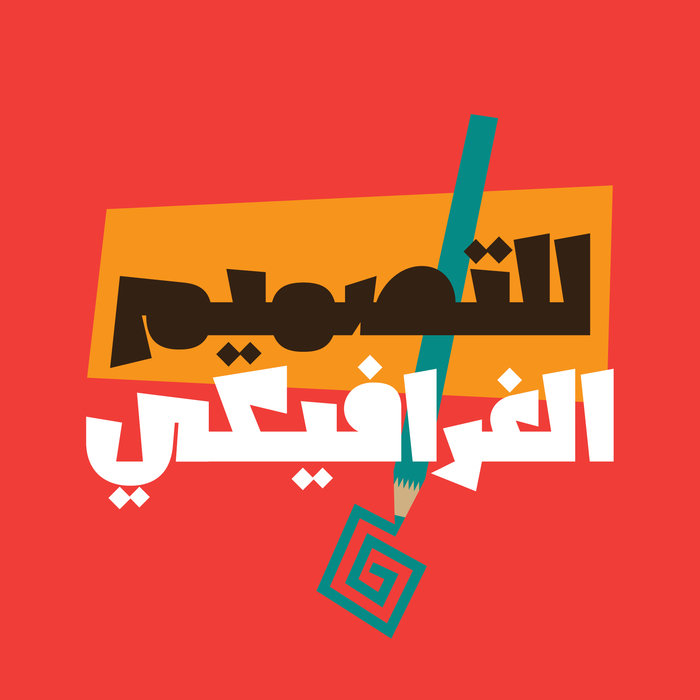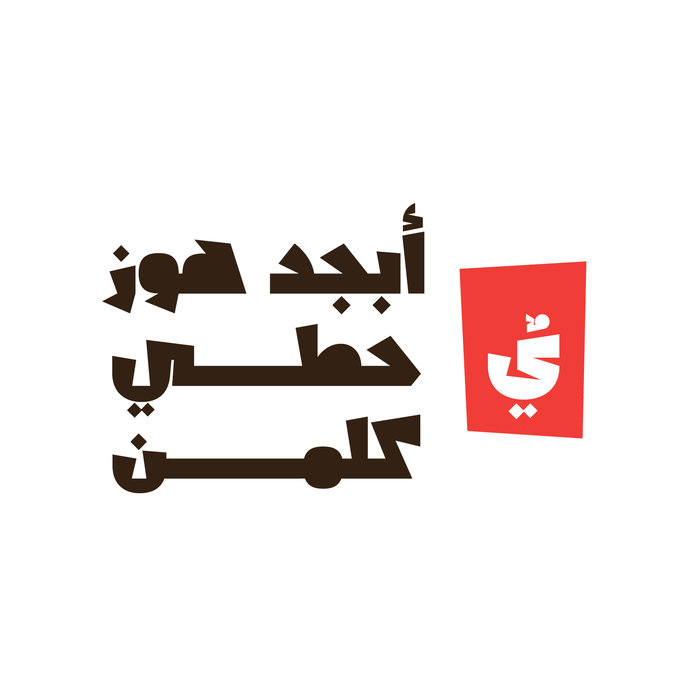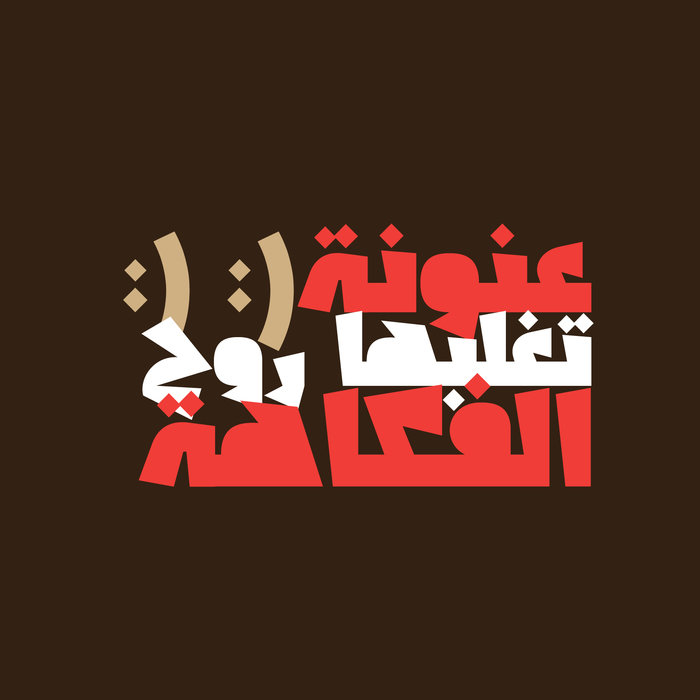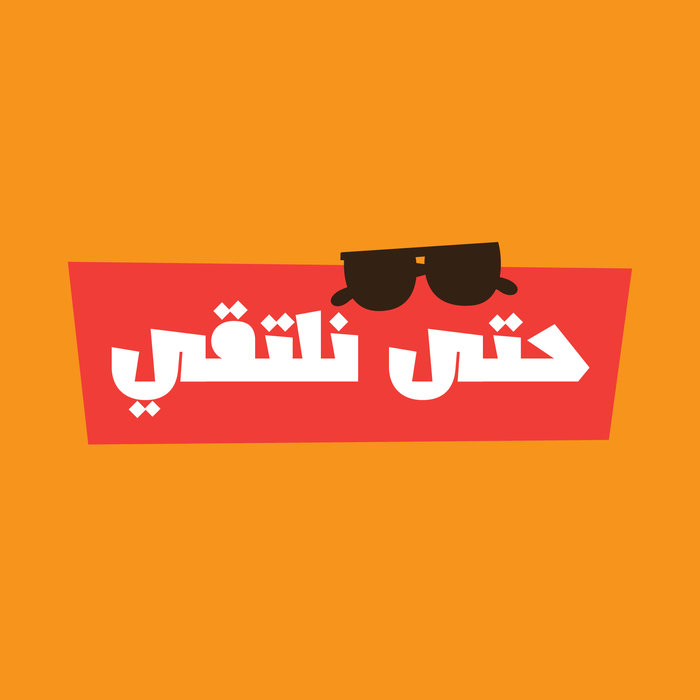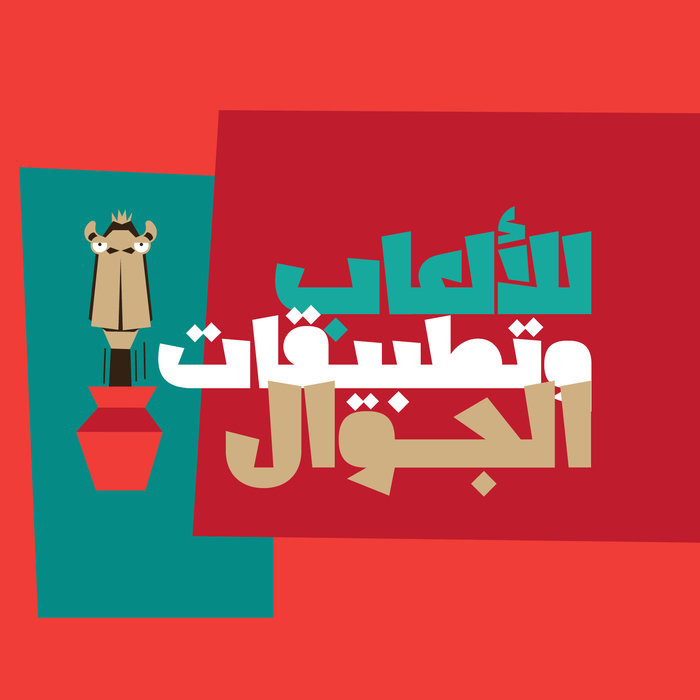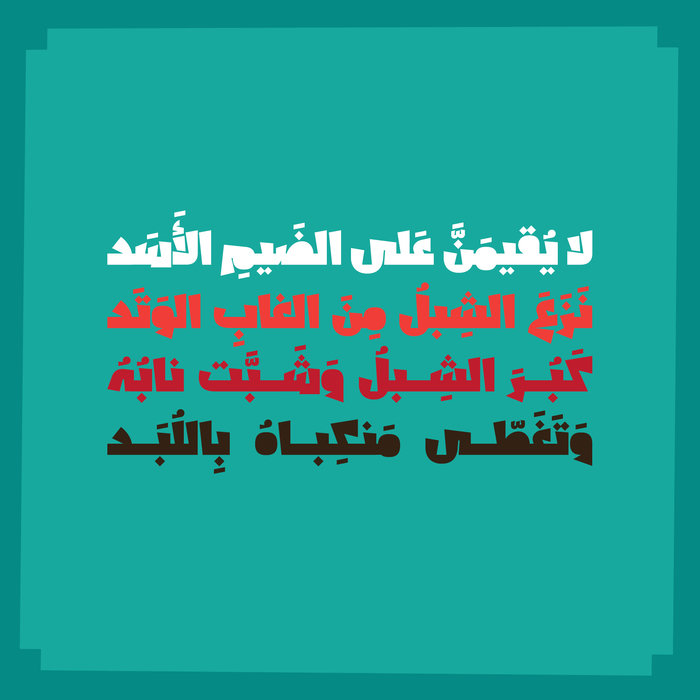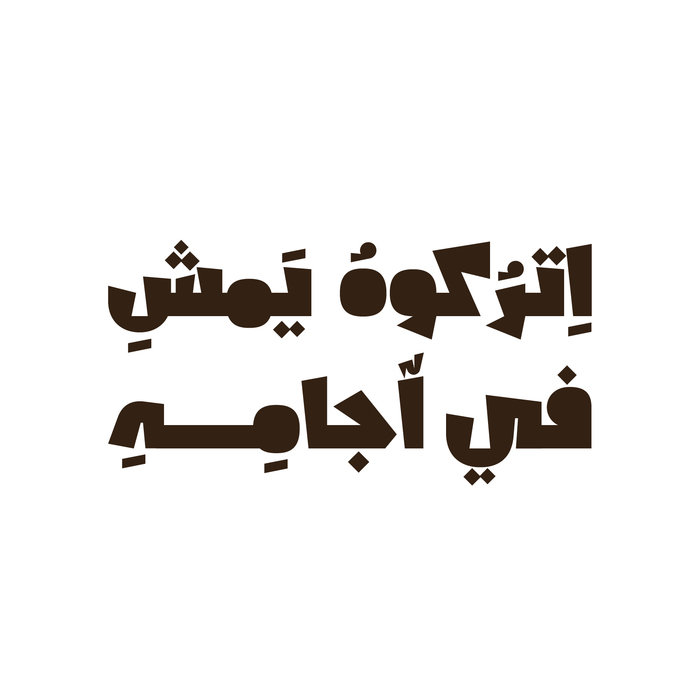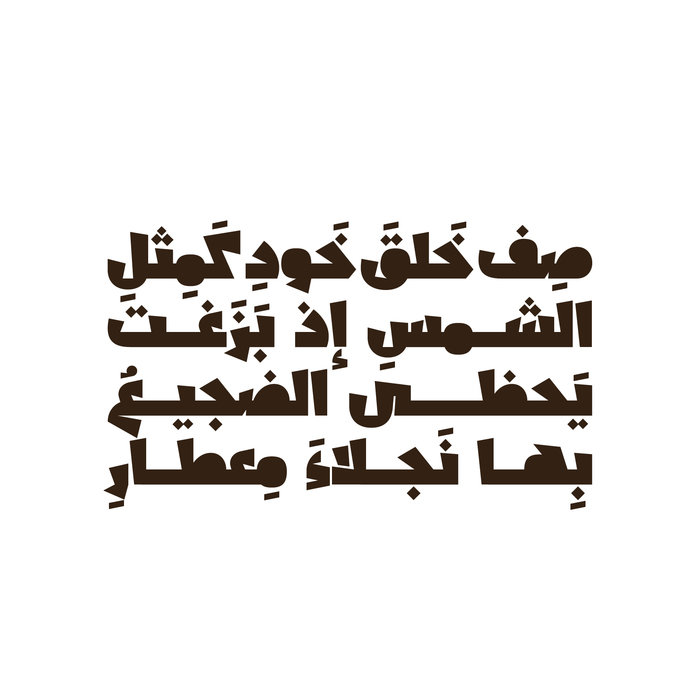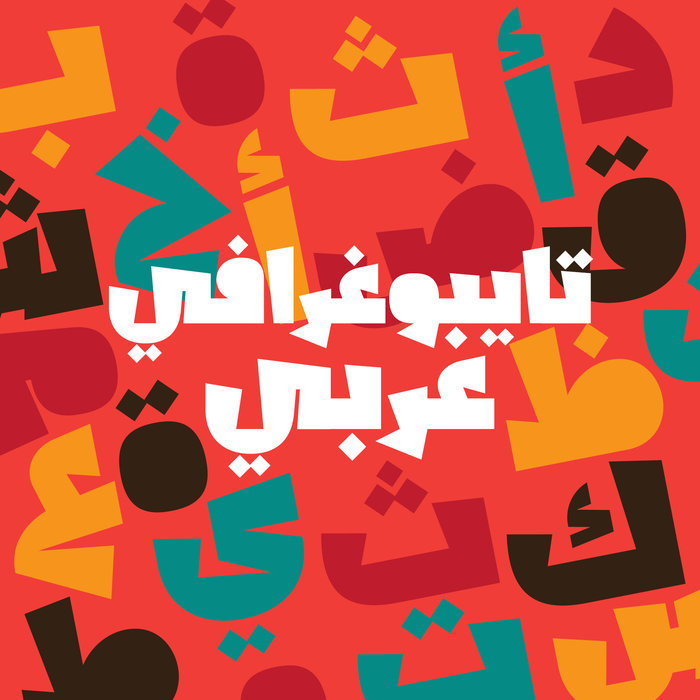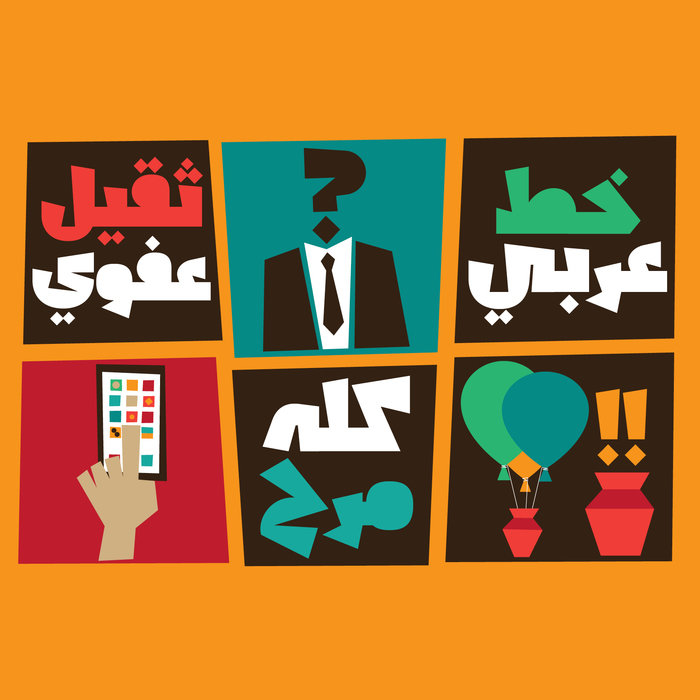
Shakhabeet - Arabic Font
Shakhabeet (which is the Arabic word for Scribbles) is an Arabic display font that features casual letterform design with a heavy weight. The font's spontaneous style makes it a good companion to digital illustrations. Shakhabeet is suitable for creative titles, advertising, branding and publication design. It is also suitable for web design, print and mobile applications.